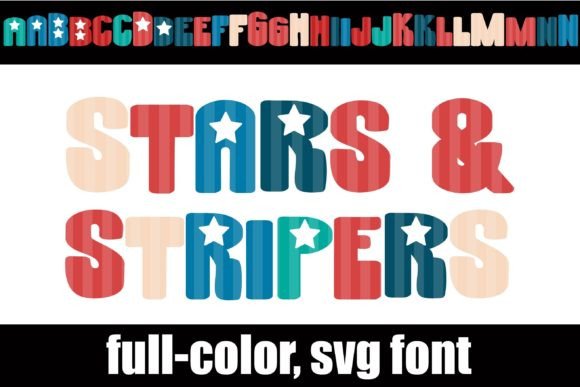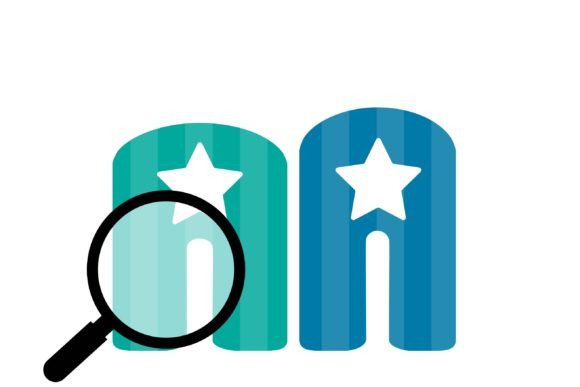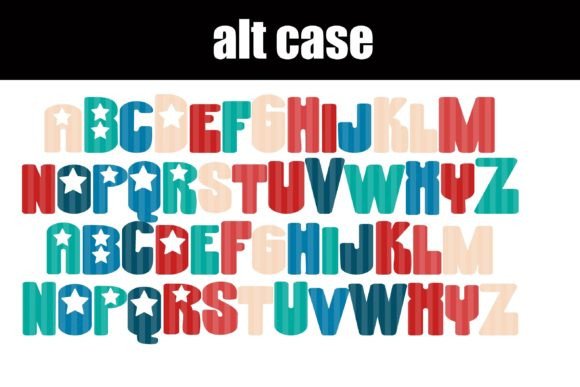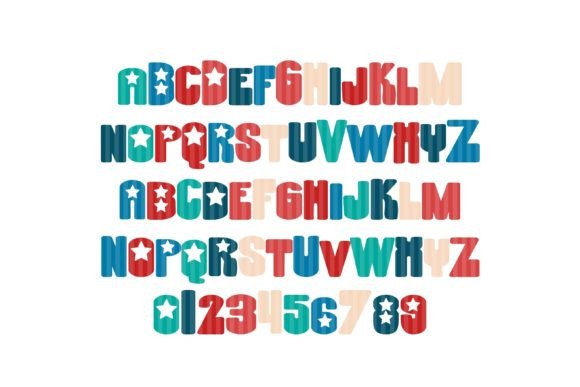
Stars and Stripers Font
About the Stars and Stripers Font
Welcome to the world of Stars and Stripers Font, a typeface that will inspire your next great project. This full-color font features a chunky, rounded font in a patriotic color palette. There is an alt case w/ additional colors you can access through your system or Silhouette’s glyph map. This font works best for titles, displays, posters and more. Please note color fonts will show as black in non compatible programs. This font type is compatible with Silhouette Studio.